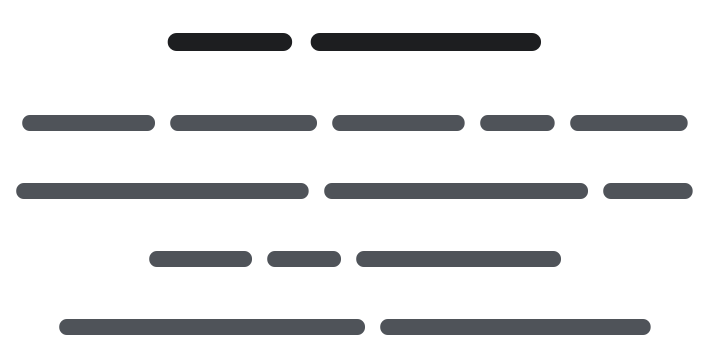
Flow Font Family
About Flow
Flow is a font family built for abstracting content and code for design mockups, wireframing, presentations, and websites. It's not perfect, but neither are your wireframes. Flow has sub-pixels, artifacts, overlaps and other imperfections.
Flow comes in three styles: Circular, Rounded and Block. Check out danross.co/flow/.